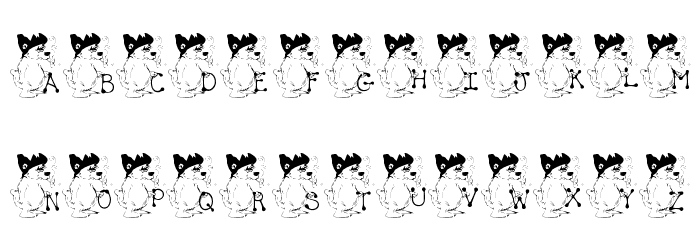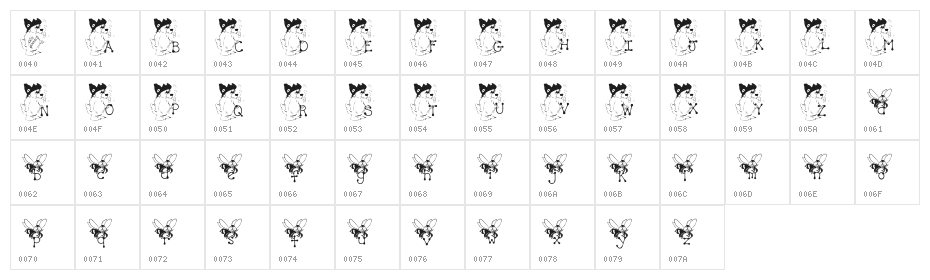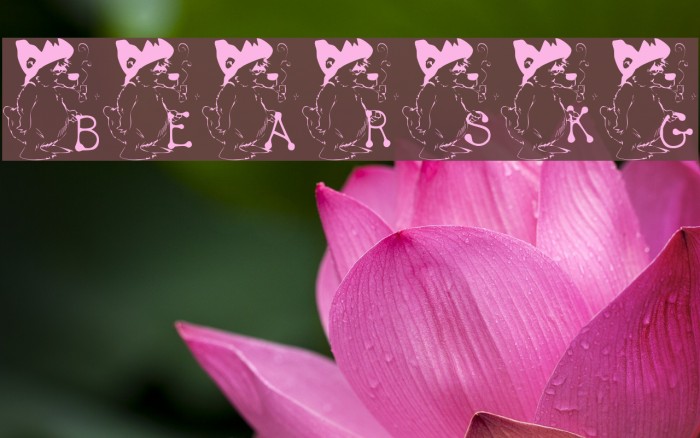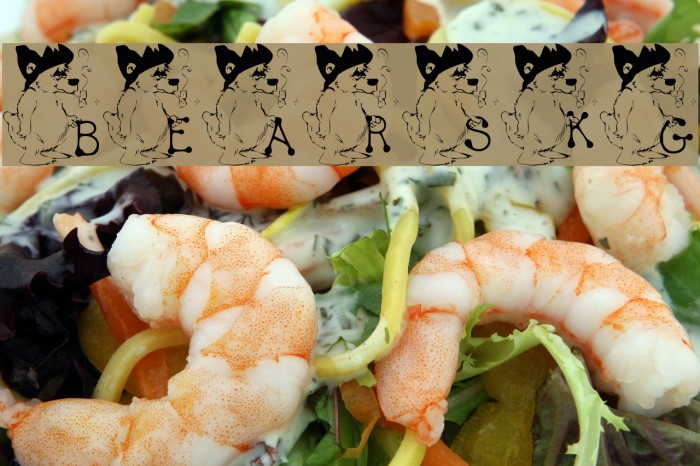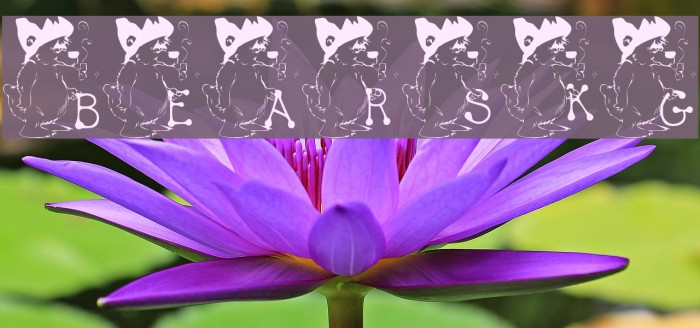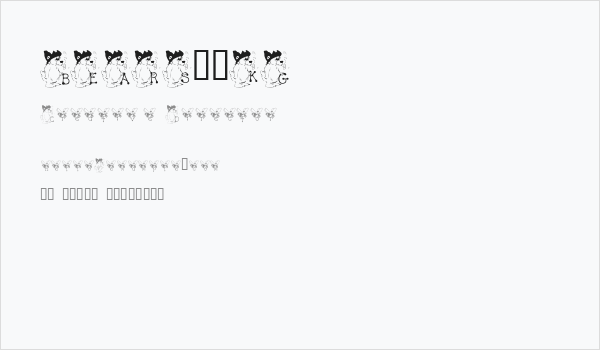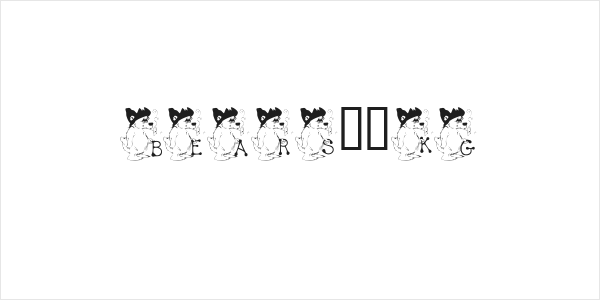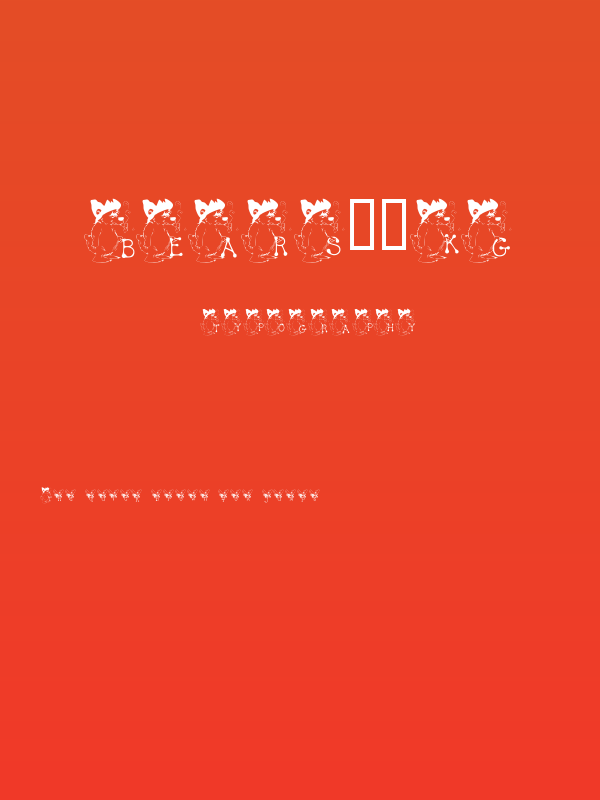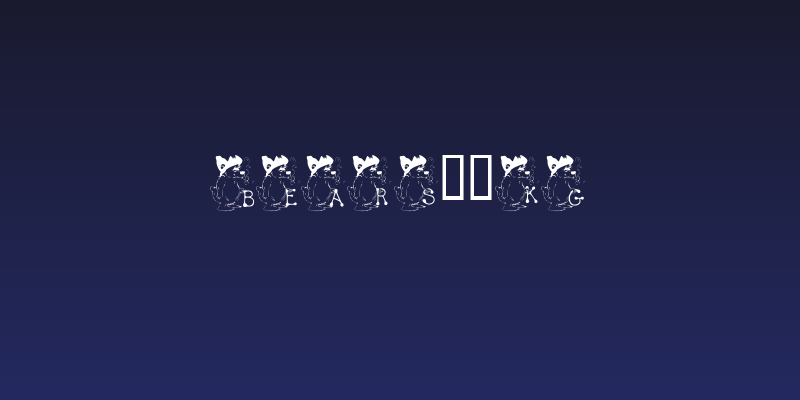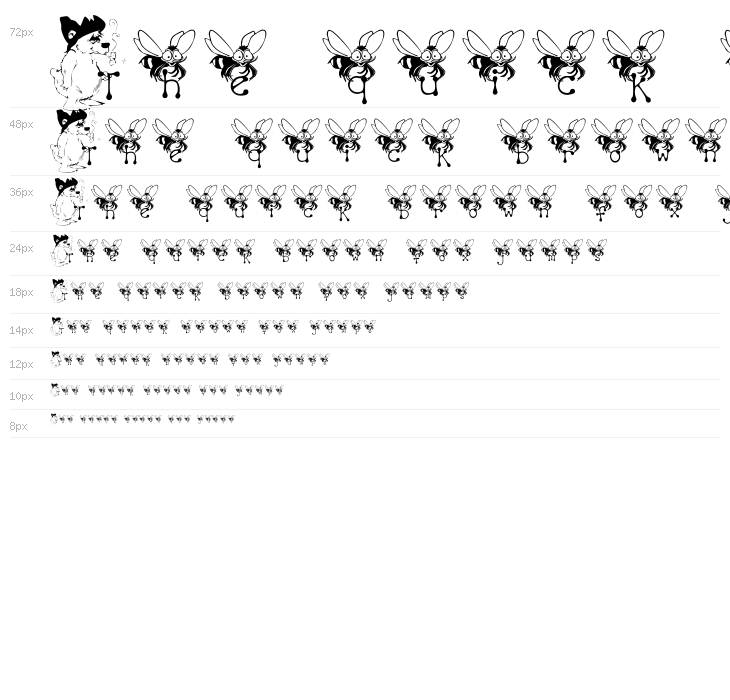
BEARS1_KG Font
BEARS1_KG Description
This whimsical decorative font features playful bear illustrations integrated with each letter. The uppercase letters are accompanied by a charming bear character, adding a unique and friendly touch. The lowercase letters maintain the same playful style, ensuring consistency throughout. The font is ideal for children's projects, evoking a sense of fun and imagination. The characters are well-defined, with a moderate contrast in stroke thickness, making them easily readable despite the decorative elements. The overall style is playful and imaginative, perfect for projects that aim to capture a youthful and joyful essence.
| Proposed Projects | Ideal for children's books, playful branding, greeting cards, and educational materials. |